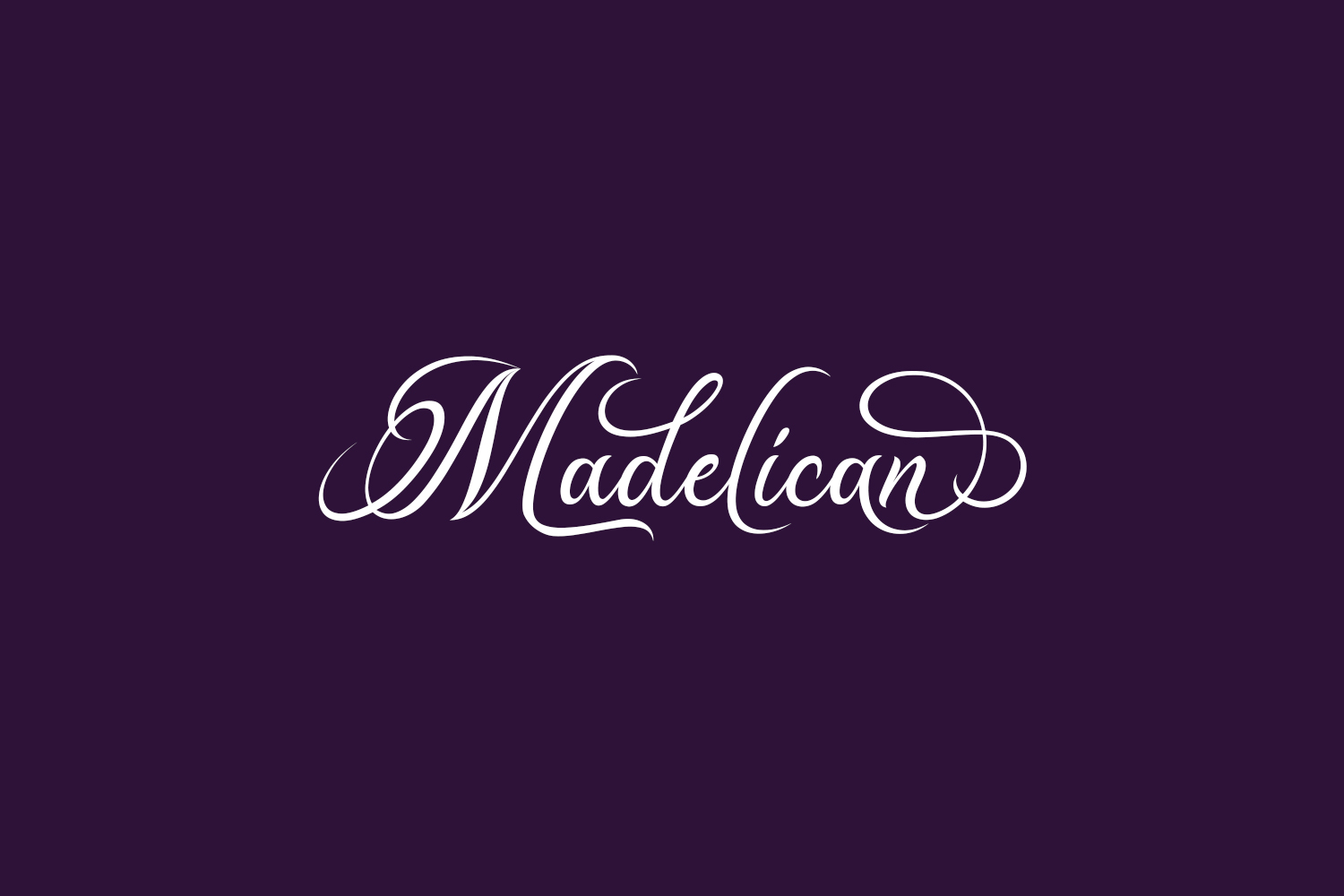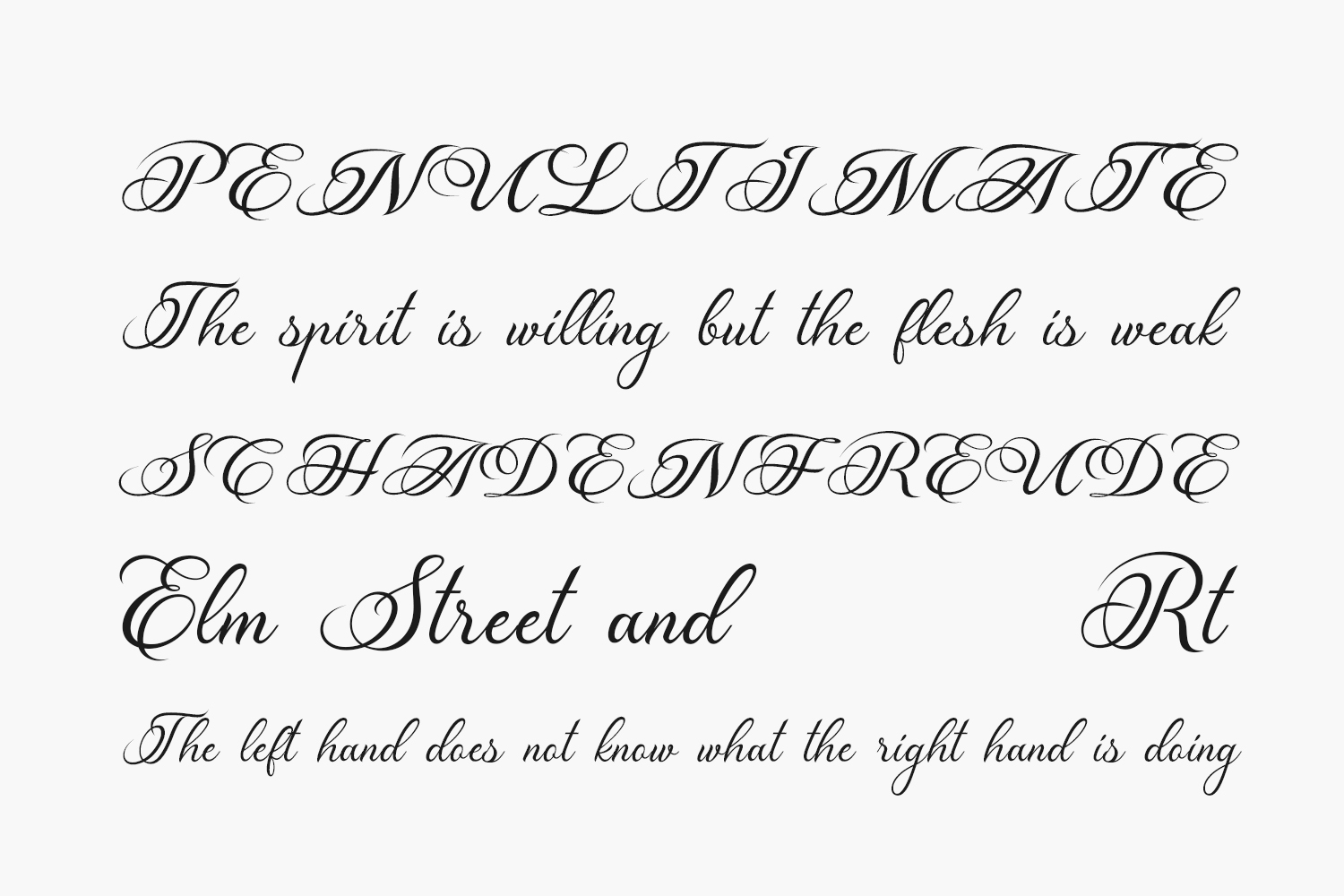
Madelican Free Font is a beautiful combination of modern and romantic calligraphy. It is perfect for logos, posters, signatures, and much more. Madelican Free Font was designed by Subectype & Orenari is a demo and free for personal use only. Please purchase the full version for commercial use.